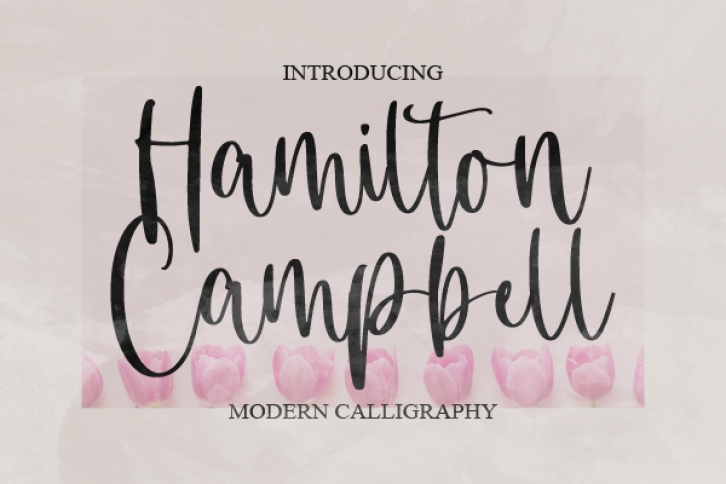
Hamilton Campbell feels equally charming and elegant. It looks stunning on wedding invitations, thank you cards, quotes, greeting cards, logos, business cards, and every other design which needs a handwritten touch.